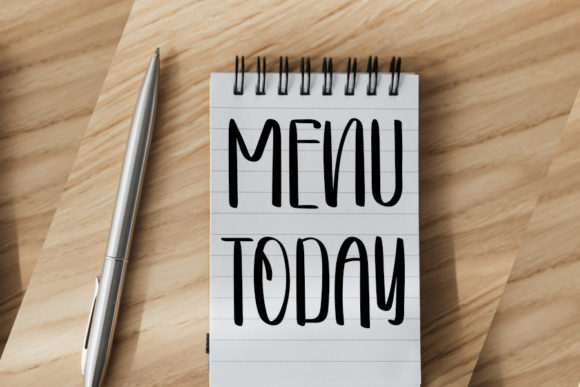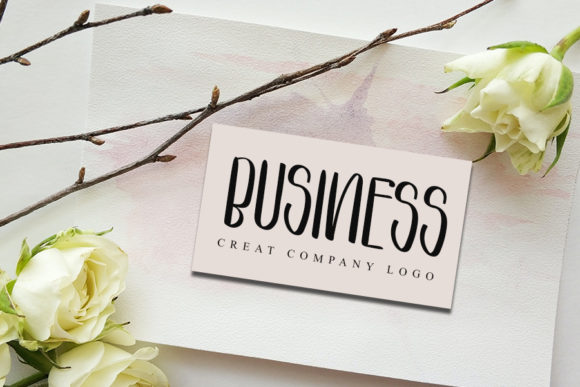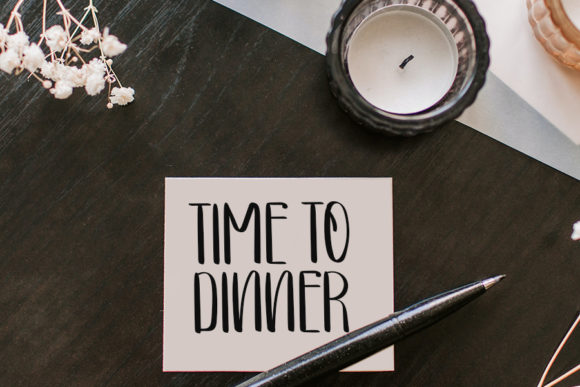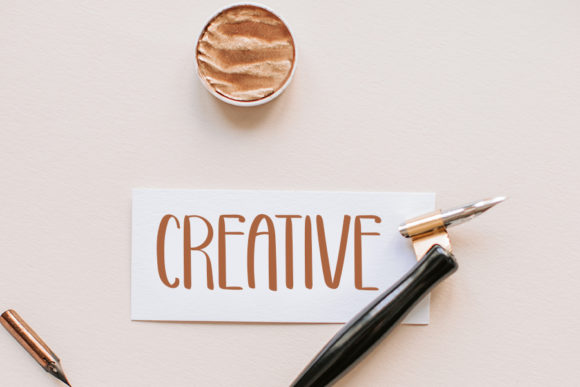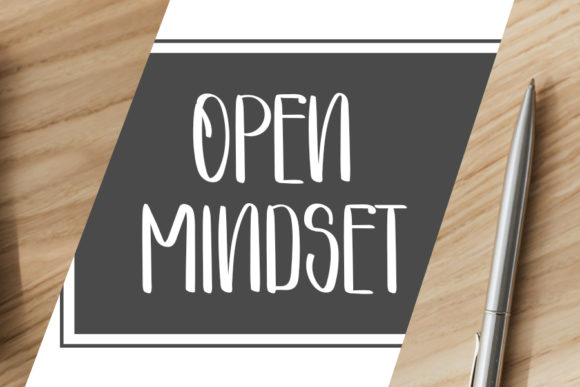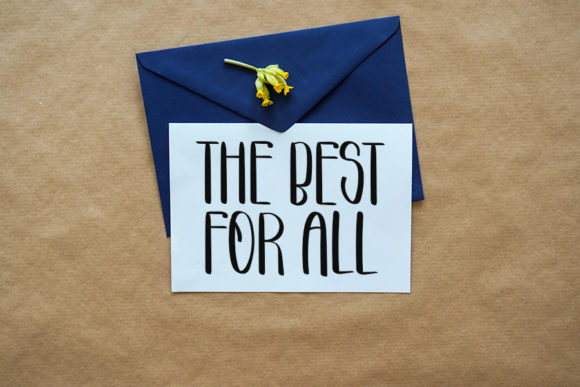
Introduction to Chicken Catsudo Font
Have you ever stumbled upon the perfect design element and felt like you’ve struck gold? That’s exactly what happens when you discover the Chicken Catsudo Font. Its unique blend of simplicity and charm makes it a game-changer for any creative project.
As a designer, you’re always on the lookout for that special something that elevates your work to the next level. And that’s exactly what the Chicken Catsudo Font offers – a high-quality design resource that’s perfect for fashion branding, editorial designs, and so much more. With its transparent background and free download option, you can easily add it to your projects and watch your design come to life.
Whether you’re working on a high-end fashion campaign or a personal blog, the Chicken Catsudo Font is sure to add a touch of sophistication and whimsy to your design. So why settle for ordinary when you can have extraordinary? Add the Chicken Catsudo Font to your design arsenal and get ready to take your creative projects to new heights.
Key Features of Chicken Catsudo Font
- Unique and playful design: The Chicken Catsudo Font is perfect for creative projects that require a fun and quirky touch.
- High-quality design resource: This font features clean and crisp lines, making it ideal for various design applications.
- Transparent background: The font’s transparent background allows for easy customization and blending with other design elements.
- Includes 3 different font styles: The Chicken Catsudo Font comes with three unique font styles, each with its own personality and charm.
- Resolution: The font is designed to be scalable, ensuring that it looks great at any resolution, from 72 dpi to 300 dpi.
Honest Review: Chicken Catsudo Font
I recently had the chance to work with the Chicken Catsudo Font, and I must say it’s been a game-changer for my creative project. The font is a high-quality design resource that’s perfect for adding a unique touch to any design.
What works well with this font is its versatility. It can be used for a wide range of creative projects, from logos and branding to digital art and graphics. The font also features a transparent background, which makes it easy to layer and customize to fit your design needs.
- ✨ Versatile font that can be used for a wide range of design applications
- ✨ Transparent background makes it easy to customize and layer
However, there are a few limitations to keep in mind. The font may not be suitable for all types of projects, particularly those that require a more traditional or serif font style. Additionally, the font’s uniqueness may not be to everyone’s taste, so be sure to test it out in your design before committing.
Overall, I’m really impressed with the Chicken Catsudo Font and would highly recommend it to designers looking for a unique and high-quality design resource. With its versatility, transparent background, and free download option, it’s a great addition to any design toolkit.
Getting the Most Out of the Chicken Catsudo Font
To get the most out of the Chicken Catsudo Font, use it in conjunction with a transparent background to create a high-quality design. This will allow the font to stand out and add a unique touch to your project.
The Chicken Catsudo Font is ideal for use in creative projects such as logos, posters, and social media graphics. Its unique design and high-quality appearance make it a popular choice among designers.
Experiment with different font sizes and colors to add depth and visual interest to your design. You can also combine the Chicken Catsudo Font with other design elements to create a cohesive and engaging visual identity.